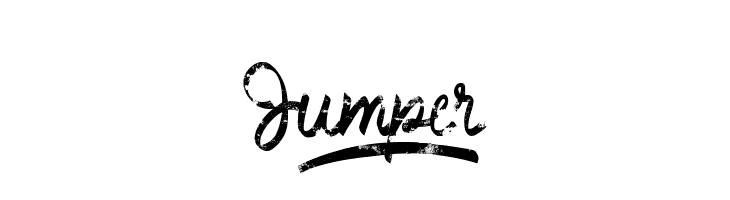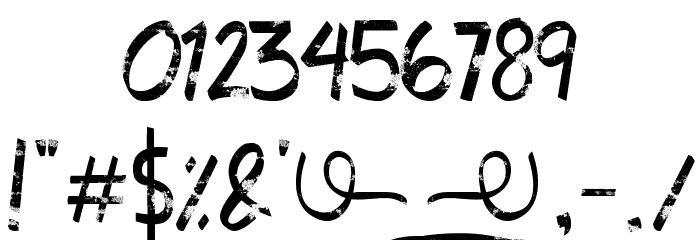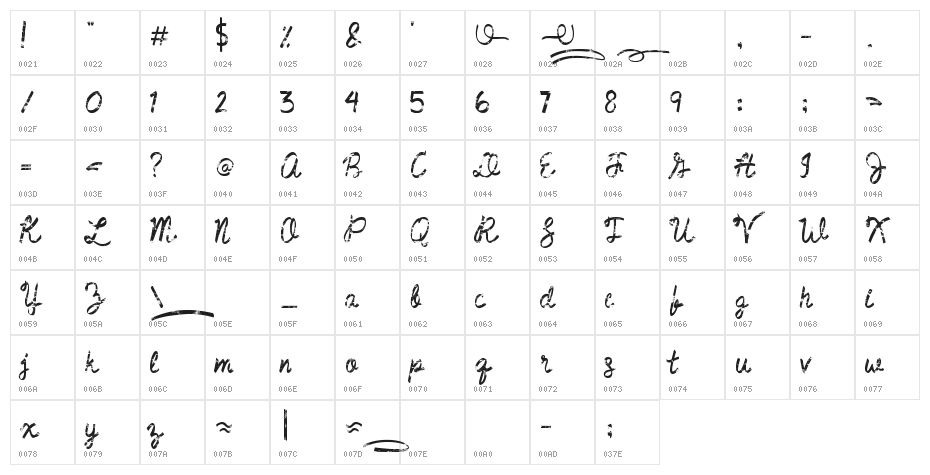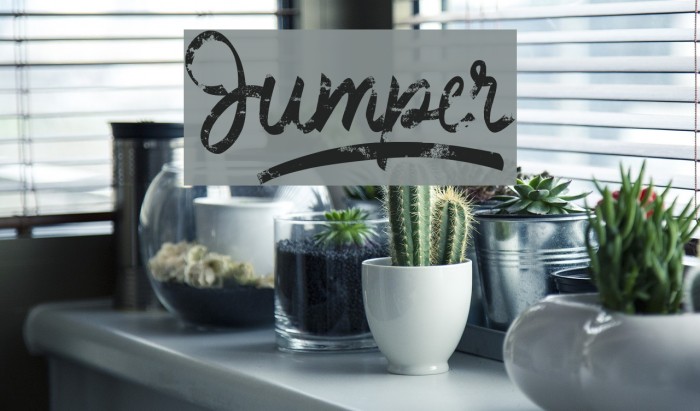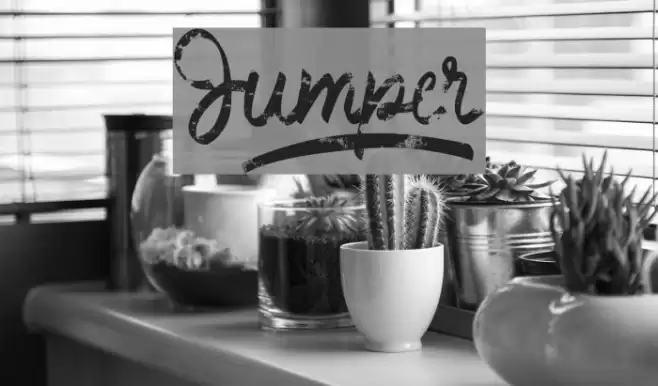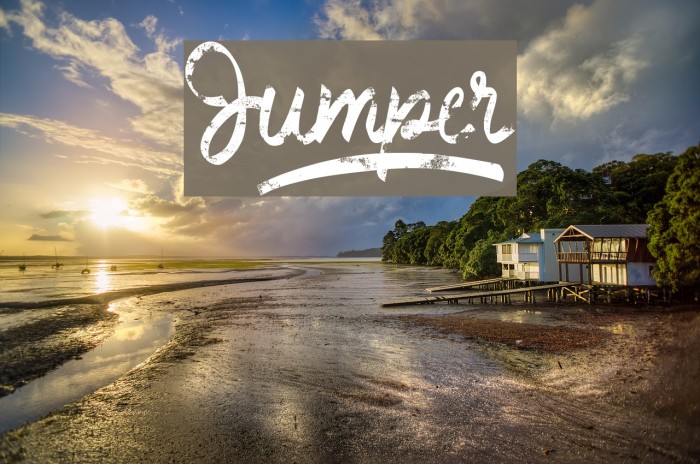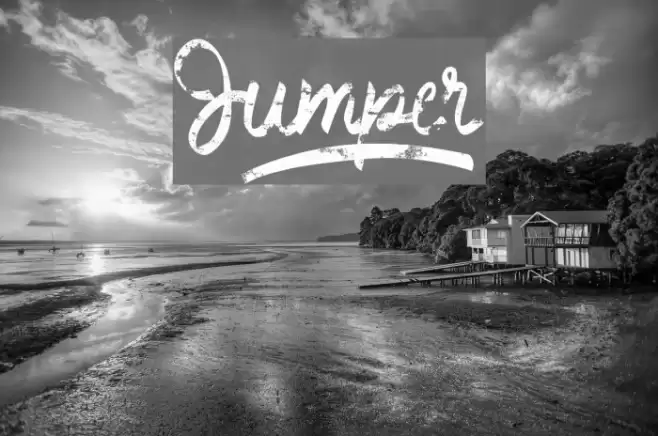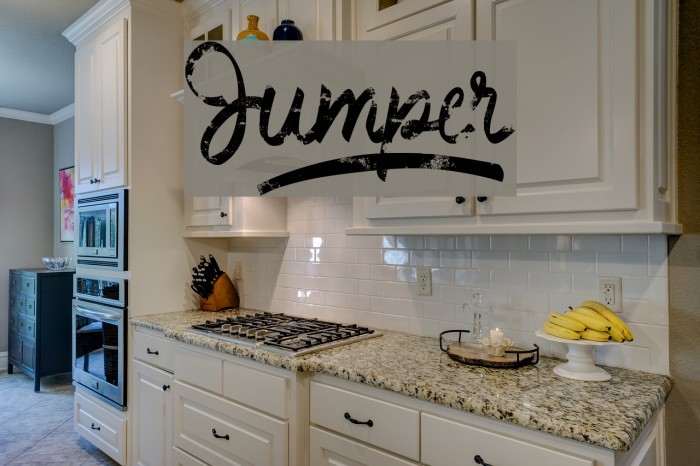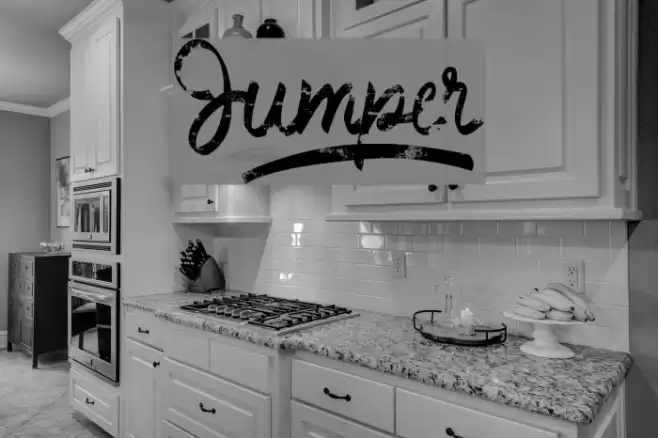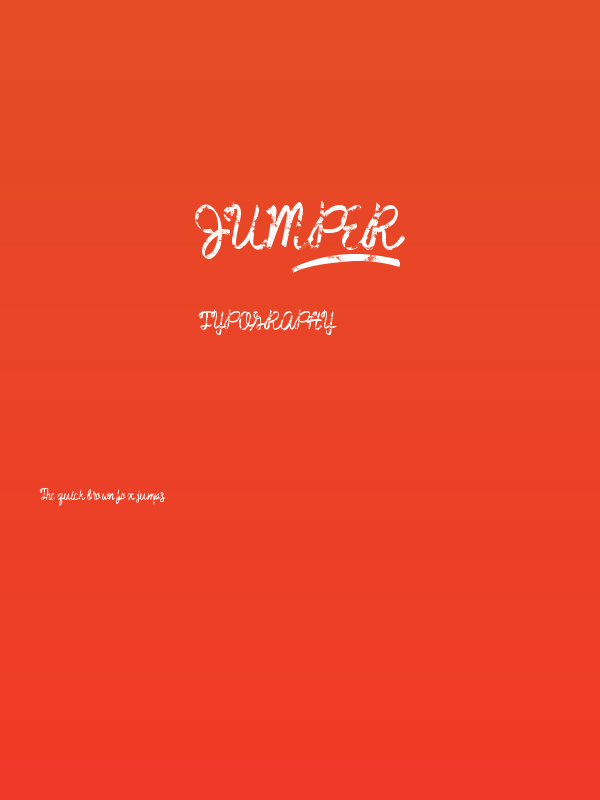
Jumper^ Font
Jumper^ Description
This font features a distressed, brush-like script style that gives it a rugged and artistic appearance. The letters are connected in a cursive manner, creating a fluid and dynamic look. The texture of the strokes is uneven, adding a handcrafted feel to the design. The uppercase and lowercase letters maintain a consistent style, with swashes and loops that enhance its decorative nature. Numbers and special characters are included, matching the overall aesthetic with their textured and expressive forms.
| Proposed Projects | Ideal for artistic projects, branding, posters, and invitations where a handcrafted, expressive touch is desired. |